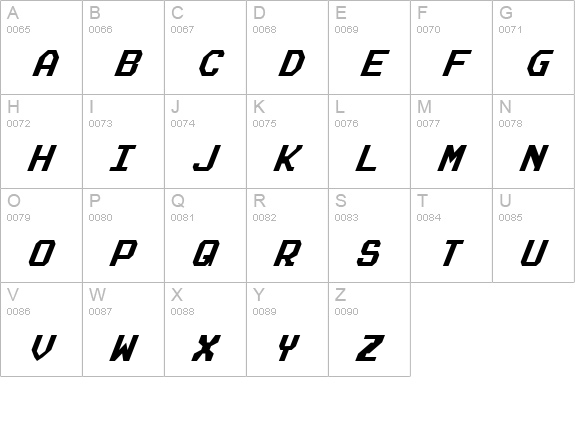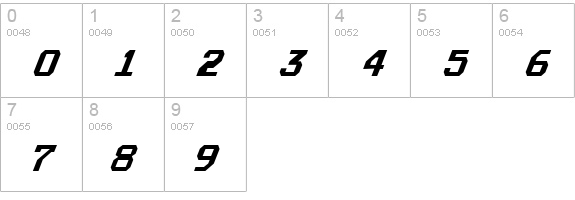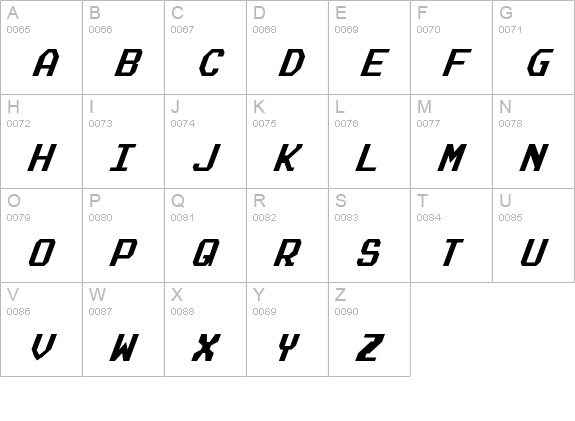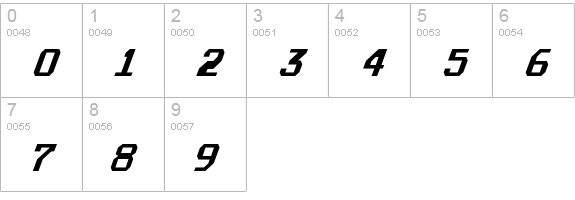
Realpolitik Condensed Italic is a distinctive, condensed-width, italic variant in the Realpolitik typeface family \xE2\x80\x94 well suited to design and typography projects.
Realpolitik Condensed Italic font is a sleek and sophisticated typeface that exudes elegance and modernity. Its condensed form adds a touch of sophistication to any design project, making it perfect for headlines, logos, and other display purposes. The italic style adds a dynamic and contemporary flair to the text, making it stand out with a subtle sense of flair. With its clean lines and sharp angles, Realpolitik Condensed Italic font is versatile and captivating, making it ideal for a wide range of design applications. Whether you're creating branding materials, editorial layouts, or digital graphics, this font will add a touch of class and professionalism to your work. Best of all, Realpolitik Condensed Italic font is available for free download at FontsMarket.com, making it accessible to designers of all levels. Don't miss out on this opportunity to enhance your projects with the sleek and stylish Realpolitik Condensed Italic font.